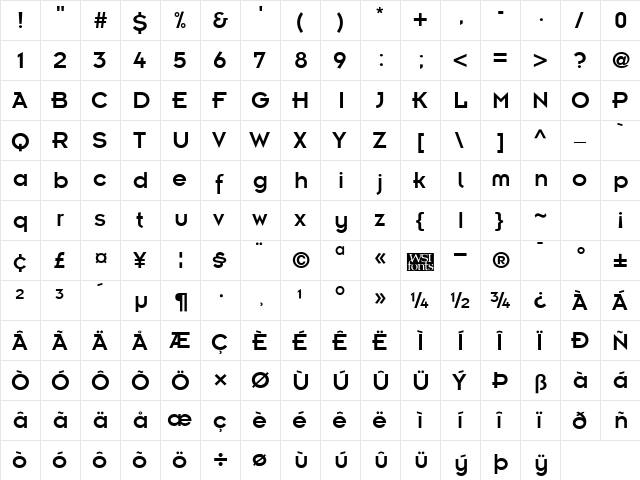
Emblem Regular
Design Context for Emblem Typeface
Emblem takes a measured approach to typography — its balanced proportions and neutral character make it a reliable workhorse for both digital and print work.